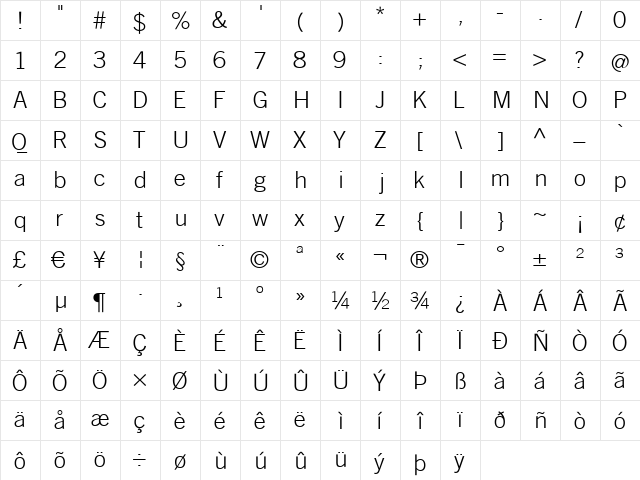
TraditionSansXLight Regular Font Preview
TraditionSansXLight Regular
Design Context for TraditionSansXLight Typeface
TraditionSansXLight offers clean, dependable letterforms without strong stylistic allegiance, making it a practical choice for designers who need flexibility. The delicate stroke weight brings airiness and refinement to layouts.